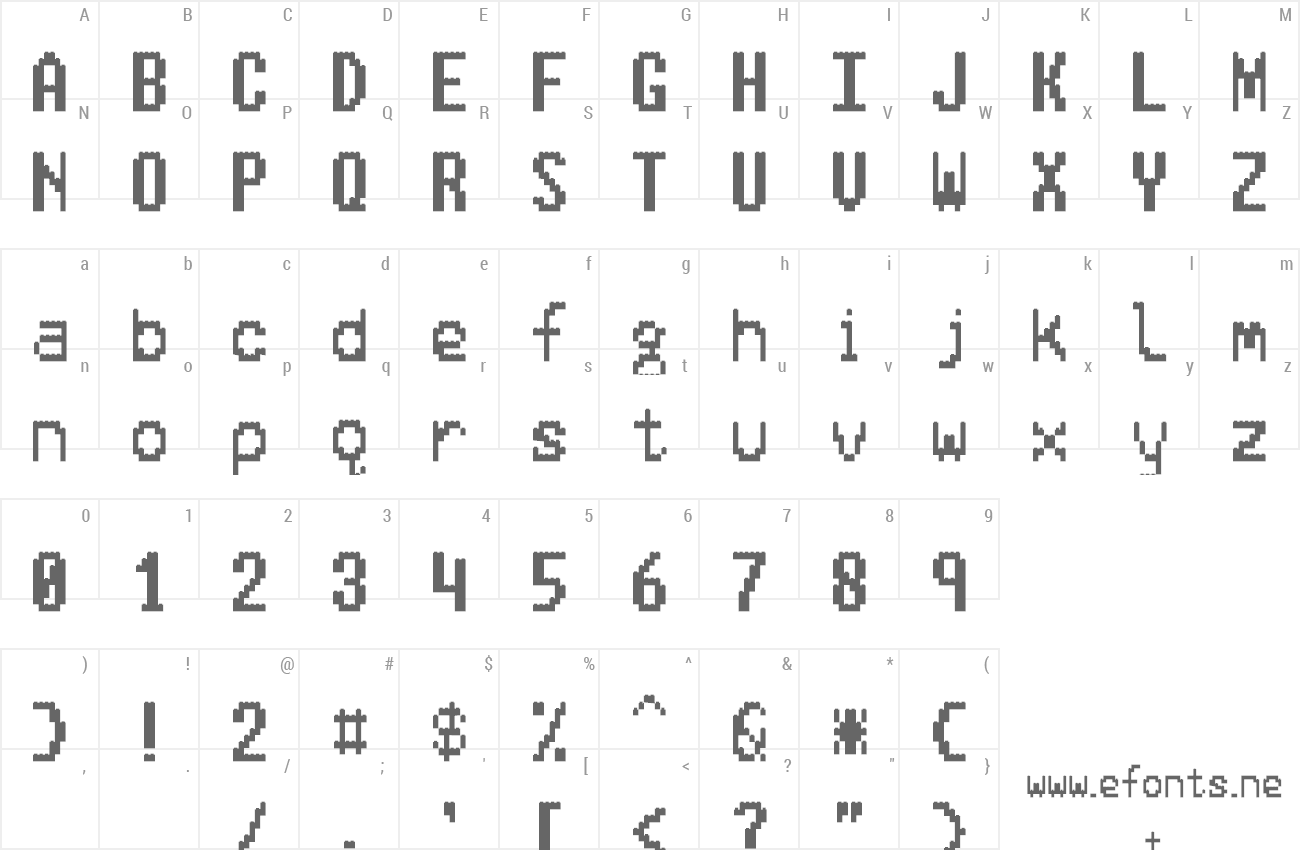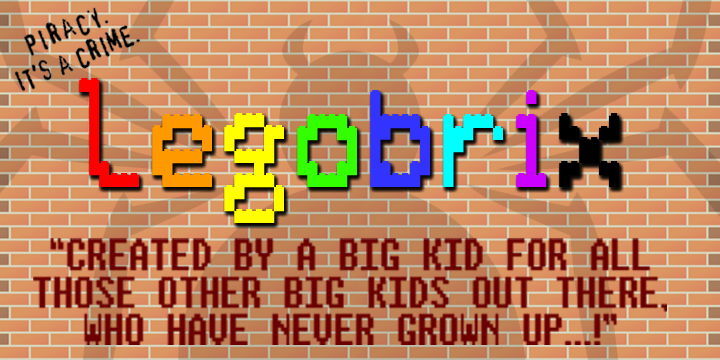
I was playing LEGO with the six year old son and we started making letters out of the bricks using different colors, we tried to use just the 1,2,4 and 6 sized bricks, it was then I had this great idea for my LEGO BRIX font. This font has now been reclassified as donationware for http://www.charityfonts.org.uk if you download this font, please donate whatever you can to help the housing and homelessness charity, SHELTER @ http://www.shelter.org.uk/donate for a commercial license please visit our Etsy store @ http://etsy.me/2elnNHk |